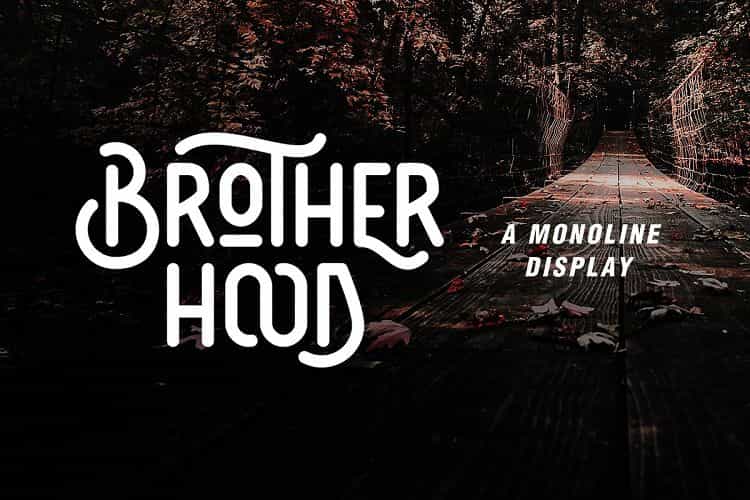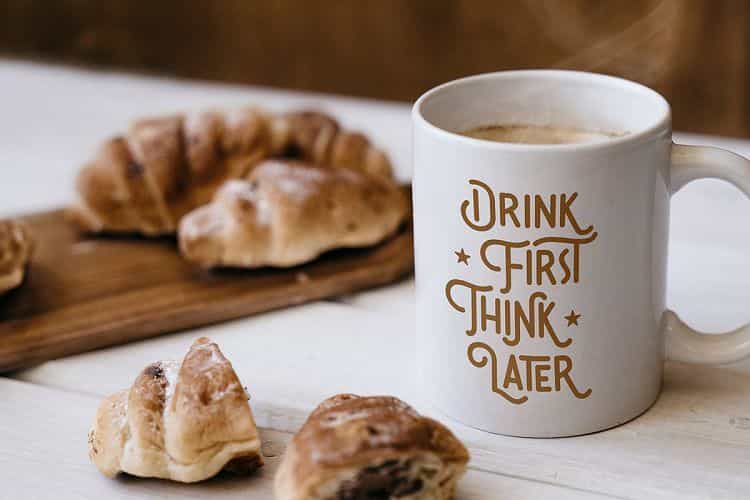
Introducing Brotherhood Font. Brotherhood is a monoline display sans font. This font is perfect for a lot of projects, including logo, lettering, quote, apparel, fashion photography and so on.